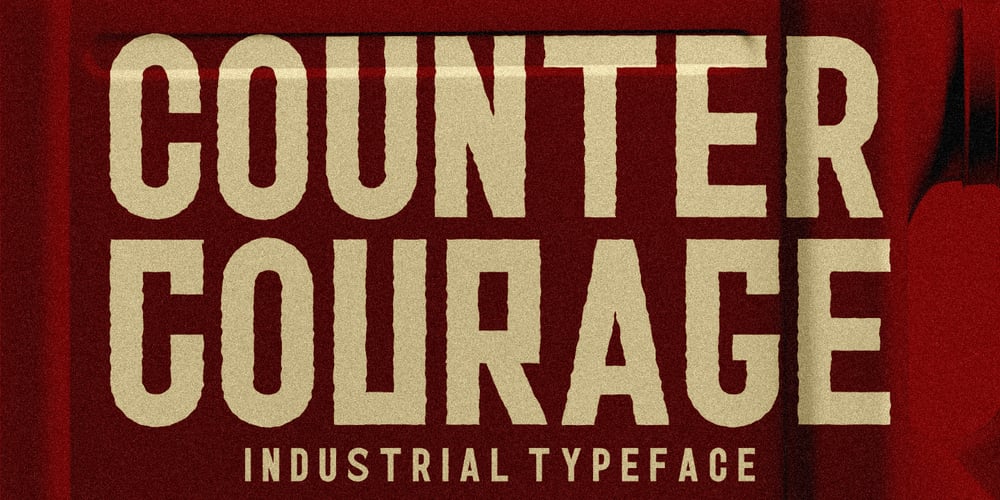
Counter Courage Font Family was designed by Lukman Hidayat and published by Viaction Type.Co. Counter Courage contains 2 styles and family package options. Counter Courage is a vintage-style sans serif font with an ink effect that’s perfect for industrial and vintage-themed designs. This font is equipped with the opentype feature and supports multilingual. Included in the fonts: Uppercase Lowercase Symbols & Pointing Alternate Characters Multilingual Support Get it now at an affordable price and high value for your needs.Thank You.